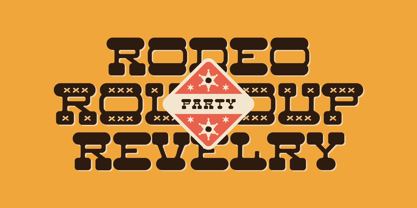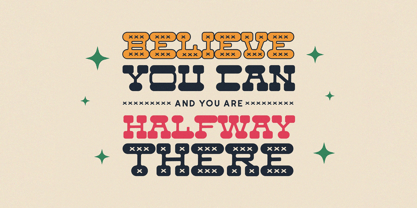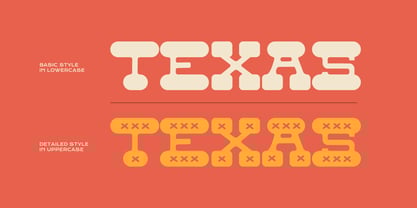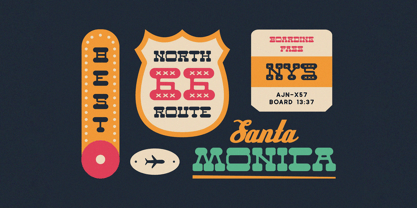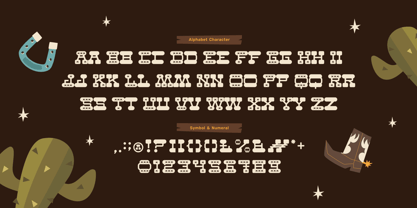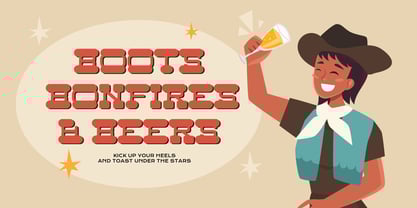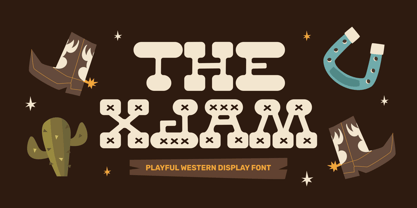
Xjam
The Xjam Font Family was designed by Aulia Savira Putri and published by Imoodev. Xjam contains 1 styles. More about this family
Xjam is a western display typeface with a fun retro-futuristic twist. Each character features thick blocky forms with rounded edges and stylized cross-stitch patterns (small 'x' marks) embedded inside, giving it a handcrafted, decorative look.
Xjam is perfect for designs that need a bold, retro charm with a playful twist, signane, vintage-style branding, retro poster, headline, t-shirt designs, greeting cards or party invitations with a mid-century or americana theme.